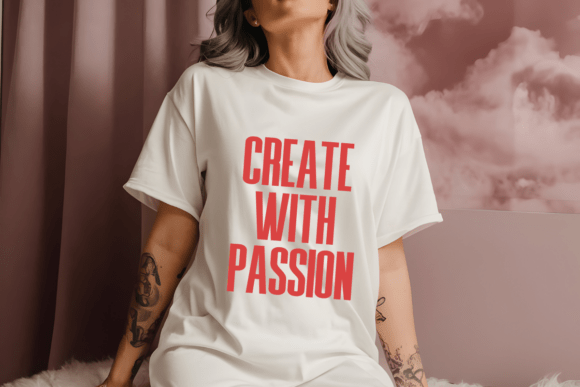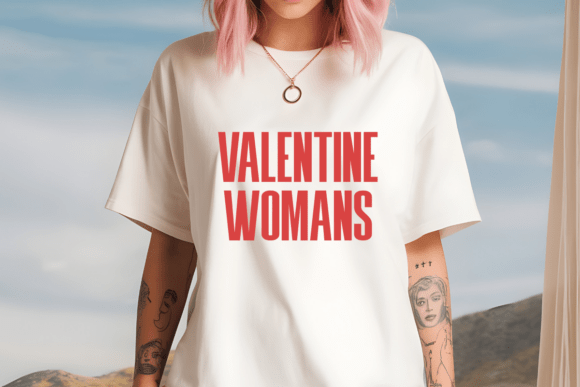
Introduction to Modern Valentine Font
Capture the essence of retro-chic romance with the Modern Valentine Font .
This unique Modern Valentine typeface strikes a beautiful balance between the nostalgic energy of mid-century advertising and the clean precision of contemporary design Its condensed nature allows you to pack a lot of emotion into tight spaces, making it ideal for greeting cards, editorial headlines, and boutique packaging.
Key Features of Modern Valentine Font
Why Choose Modern Valentine Font?